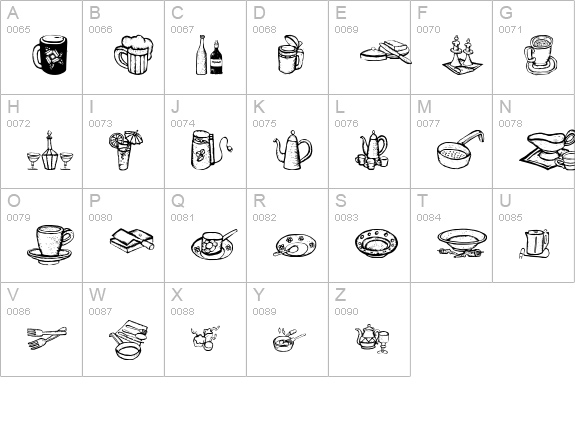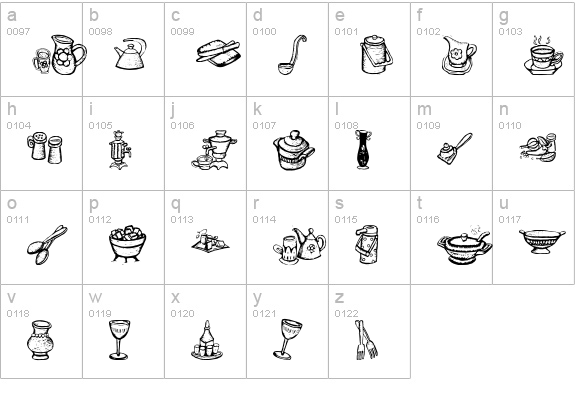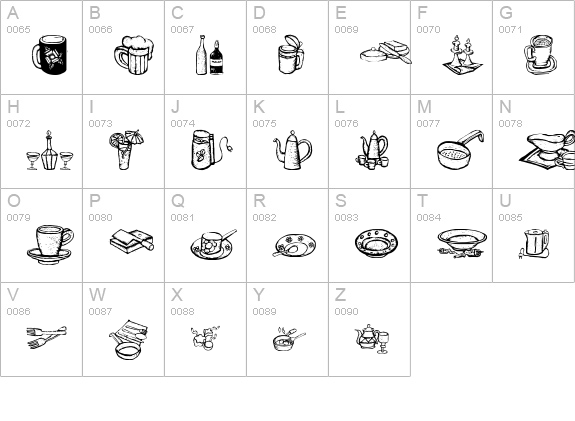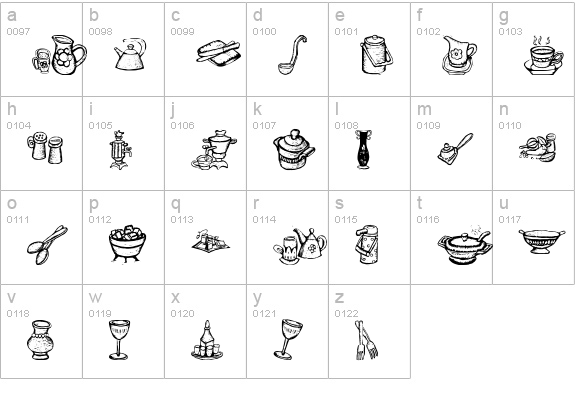
Introducing PrositBats font - a whimsical and playful typeface perfect for adding a touch of charm to your designs. With its unique characters and intricate details, PrositBats font is sure to stand out and make a statement. Whether you're working on a greeting card, poster, or logo, this font will add a fun and creative element to your project. What's even better is that PrositBats font is completely free to download at FontsMarket.com! That's right, you can easily access this delightful font and use it in your personal and commercial projects without any cost. Don't miss out on this opportunity to enhance your designs with the enchanting PrositBats font - download it now and let your creativity soar!